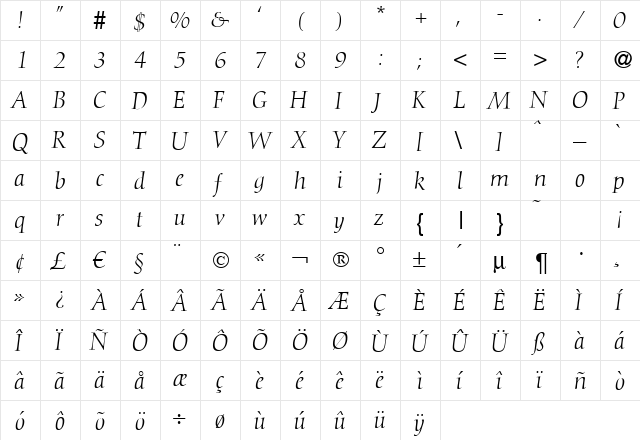
D730-Roman Italic
Design Context for D730-Roman Typeface
D730-Roman is a composed and adaptable typeface that performs quietly and consistently across a wide range of design contexts. The slanted form adds forward momentum and visual energy.
Pro Tip: Try D730-Roman for annotation and caption copy alongside an upright companion — the contrast in angle creates a dynamic but ordered typographic system.